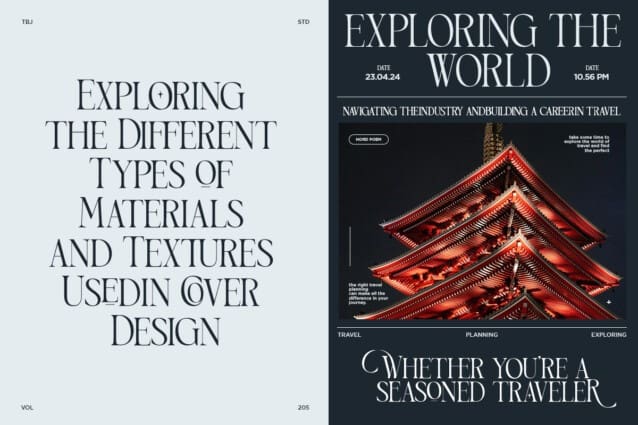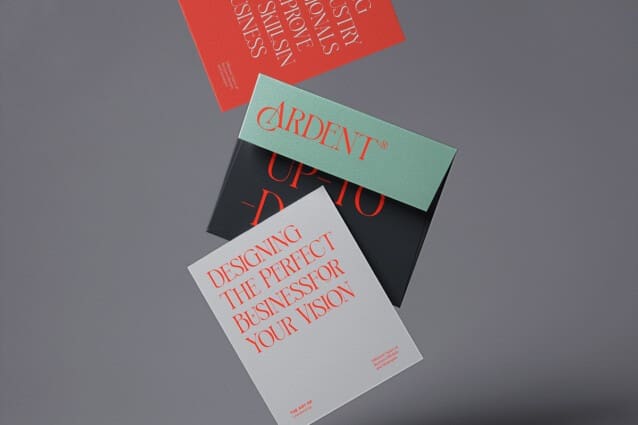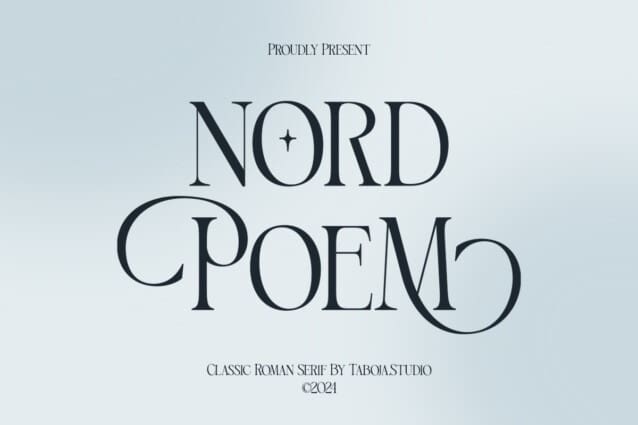
Nord Poem Font
Nord Poem Font, Elegant Serif Typeface with a unique and stylish serif display style. This font combines classic roman serif elements with modern touches, creating visually striking and strongly appearance.
This font perfect for projects that require a vintage feel, such as posters, logos, packaging, and promotional materials that aim to capture a classic style and sophisticated atmosphere. This font will add a special touch to your designs and captivate viewers with its stylish roman serif and distinctiveness.